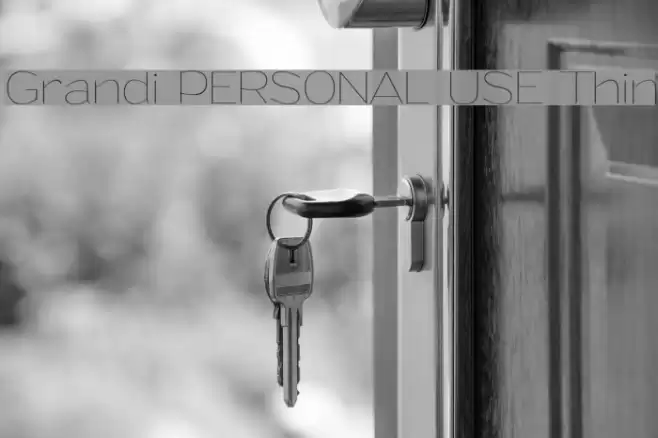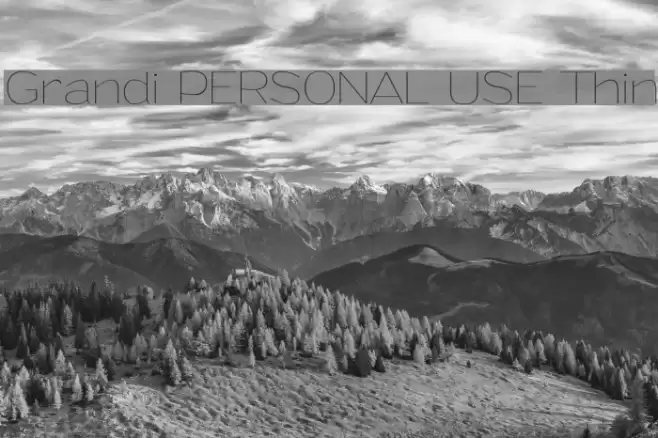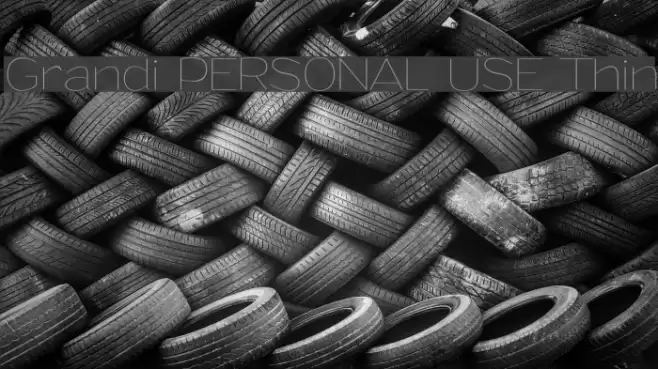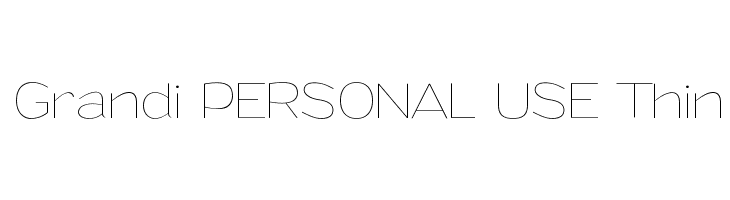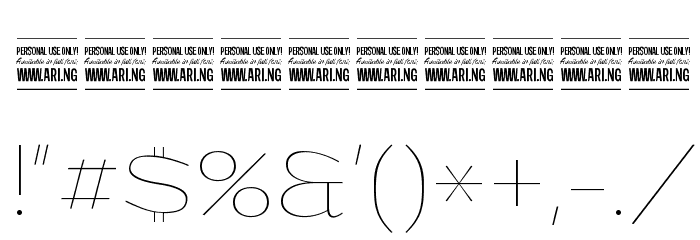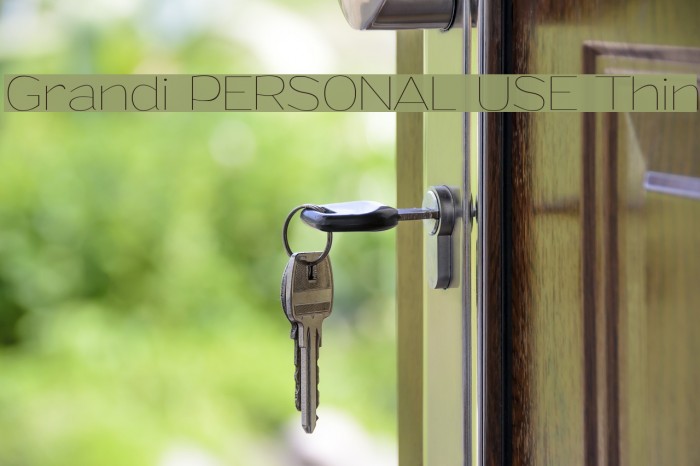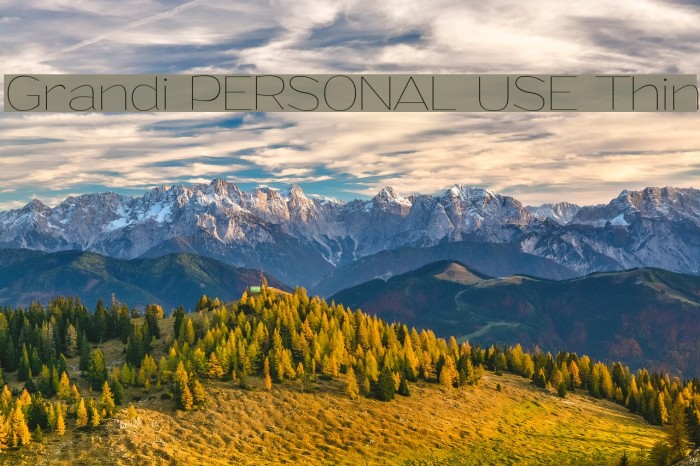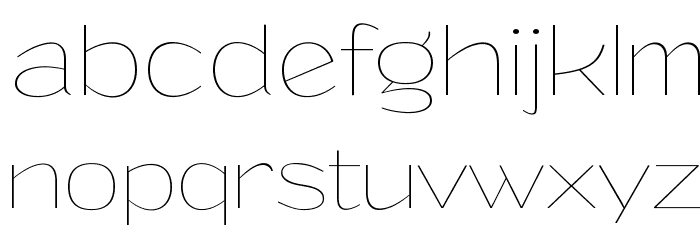
Grandi PERSONAL USE Thin Font
Grandi PERSONAL USE Thin Description
This font features a sleek, minimalist design with thin, clean lines that give it a modern and elegant appearance. The uppercase and lowercase letters are crafted with precision, maintaining a consistent stroke width throughout. The characters are well-proportioned, with a slight geometric influence that adds to its contemporary feel. The numerals and special characters are designed to match the overall aesthetic, ensuring a cohesive look across all text elements. This font is ideal for projects that require a sophisticated and understated style.
A thin, modern font with clean lines and a minimalist design from Uncategorized fonts.
- Proposed Projects: Ideal for branding, editorial design, fashion magazines, and minimalist web design.